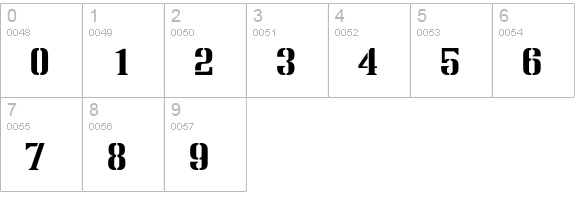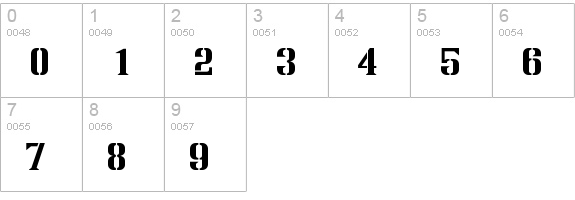
KapitelliaEF-Bold Font Details
KapitelliaEF-Bold is a strong, high-contrast variant in the KapitelliaEF typeface family \xE2\x80\x94 well suited to headlines, attention-grabbing titles, and strong calls-to-action.
KapitelliaEF-Bold is a stunning font that exudes elegance and sophistication. Its bold and powerful letterforms make a bold statement, commanding attention and leaving a lasting impression. With its clean lines and perfectly balanced proportions, this font is perfect for a wide range of design projects, from logos and branding to headlines and signage. What makes KapitelliaEF-Bold even more appealing is the fact that it is available for free. That's right, you can download this incredible font at no cost from FontsMarket.com. Whether you're a professional designer looking to add a touch of class to your work or a hobbyist looking to elevate your personal projects, KapitelliaEF-Bold is the ideal choice. The beauty of this font lies not only in its design but also in its versatility. Its bold and strong appearance makes it suitable for both print and digital applications. Whether you're designing a poster, creating a website, or crafting a business card, KapitelliaEF-Bold will effortlessly elevate your design and make it stand out from the crowd. The attention to detail in KapitelliaEF-Bold is truly remarkable. Each letter is meticulously crafted, ensuring that every curve and stroke is flawless. The result is a font that is not only visually appealing but also highly legible. Whether it's displayed at a large size or used in smaller text, KapitelliaEF-Bold remains clear and easy to read. With its timeless design and free availability, KapitelliaEF-Bold is a font that every designer should have in their arsenal. It's a font that effortlessly combines elegance with boldness, making it perfect for both formal and informal applications. So why wait? Head over to FontsMarket.com and download KapitelliaEF-Bold today and take your designs to new heights.